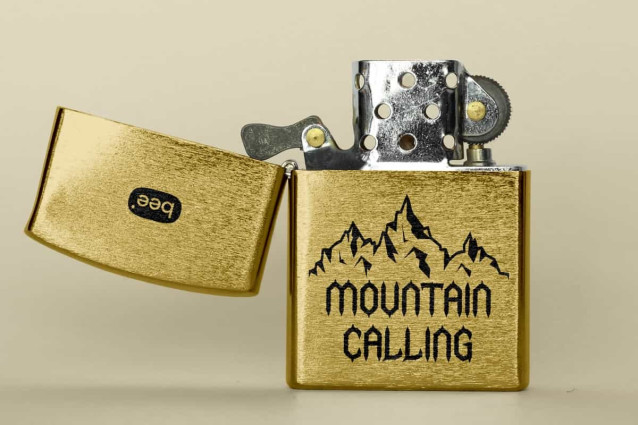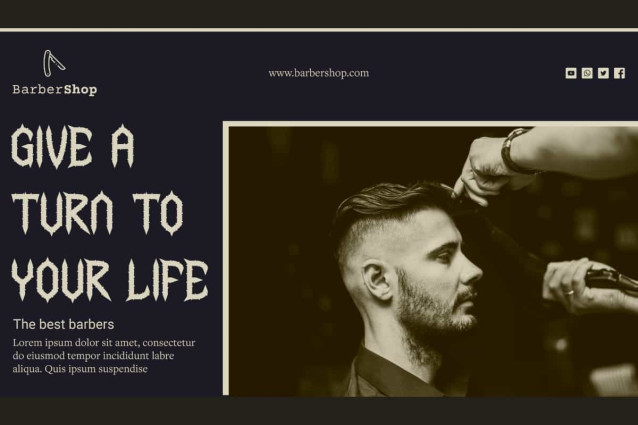
Prisoned Font
Prisoned Font is a bold and savage black metal font, created by NoahType. This font is decorated with horns, thorns, and wire ropes which makes it look intimidating and cool at the same time. It will be perfect for any designs, such as brand image, cover, custom design, invitation, label, marketing material, menu, poster, printing, product packaging, quotes, signage, website, and many more!
Prisoned Font includes full set of ALL CAPS for Uppercase and Lowercase Basic Characters, Numerals, Punctuation, and Symbol. The Alternate character will make your design awesome and also a perfect choice for many industries, such as fashion, game, movie, barber shop, accessories, advertising, art, café, event or festival, printing, publishing, etc.